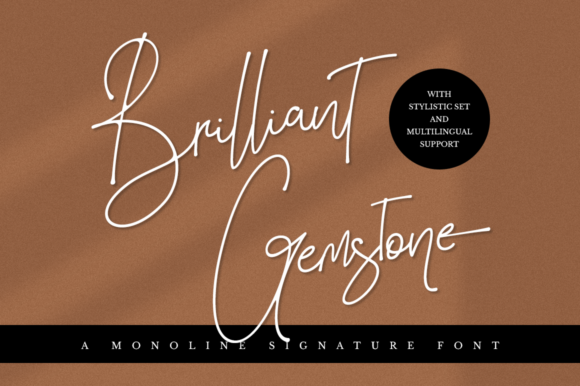
The Designer’s Delight: Brilliant Gemstone Font
Have you ever been in the middle of a design project, and suddenly, you’re stuck on finding the perfect font? I recall a recent experience where I was working on a branding project for a luxury jewelry client. The design needed a touch of elegance and sophistication, but my usual go-to fonts just weren’t cutting it. That’s when I stumbled upon the Brilliant Gemstone font, and it completely transformed my design.
- ✨ The modern signature script style combines classic calligraphy with a trendy touch, making it perfect for luxury brands, wedding designs, and high-end marketing materials.
- ✅ The dancing baseline adds a dynamic, elegant feel to any design.
- 💡 The font is PUA encoded, allowing easy access to all glyphs and swashes.
- 🎉 The OpenType features provide a wide range of stylistic alternates and ligatures.
While working with Brilliant Gemstone, I did notice a few minor limitations:
- ⚠️ Some of the swashes and glyphs can be a bit finicky to access, especially for beginners.
- 🤔 The font might not be the best fit for very small text sizes or body text, as it’s designed for headlines and titles.
The Designer Inspiration Behind Brilliant Gemstone
The Brilliant Gemstone font was created with the intention of combining classic calligraphy with modern style. The designer aimed to create a font that would add a touch of elegance and sophistication to any design. With its dancing baseline and OpenType features, Brilliant Gemstone is perfect for designers looking to add a luxurious feel to their work.
Q: What is PUA encoding, and how does it benefit the font?
A: PUA (Private Use Area) encoding allows for easy access to glyphs and swashes, making it simpler to customize and use the font in various designs.
Q: Is Brilliant Gemstone suitable for body text or small text sizes?
A: While Brilliant Gemstone is a beautiful font, it’s primarily designed for headlines and titles. It may not be the best fit for body text or small text sizes, as it can become difficult to read.